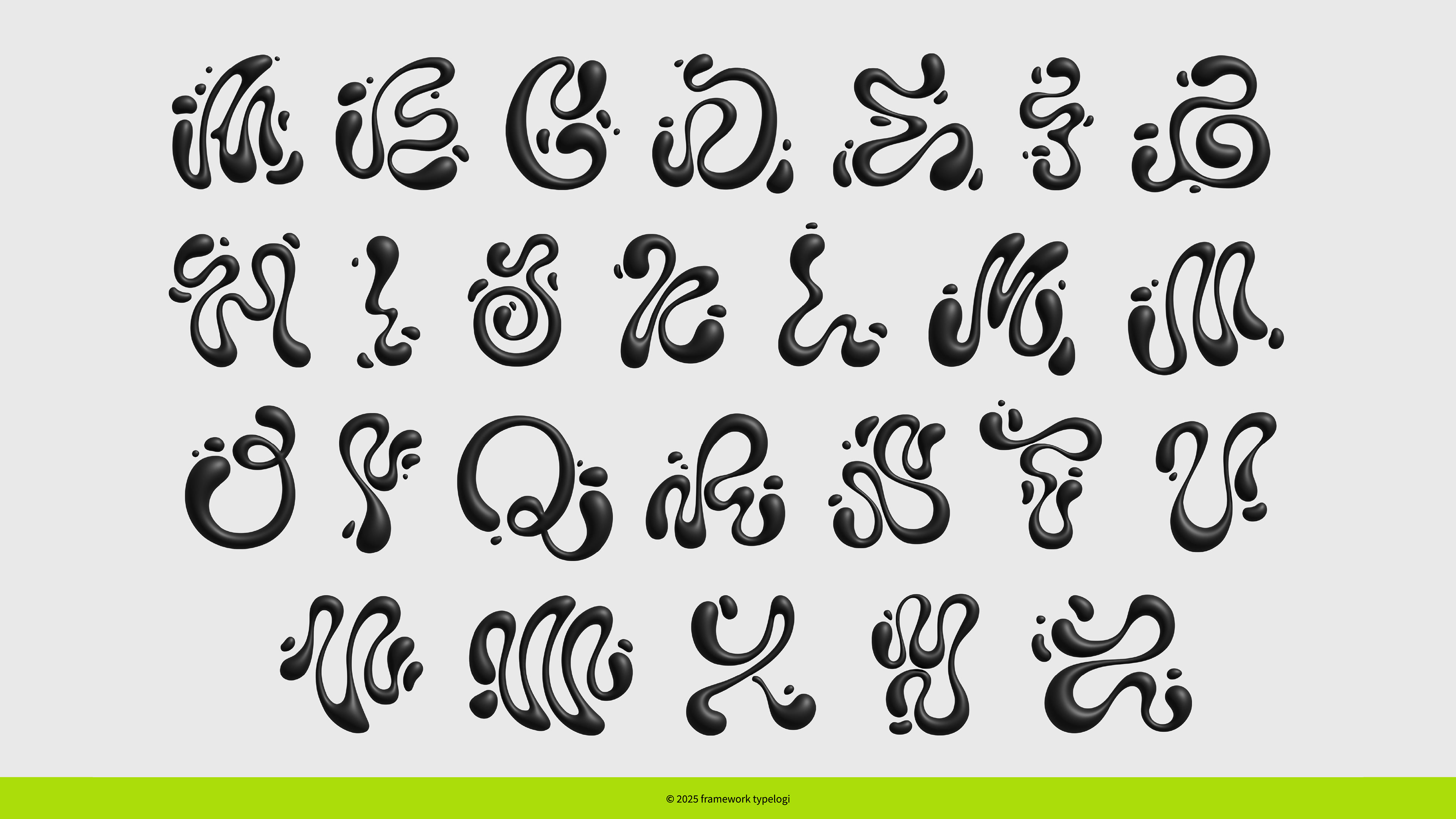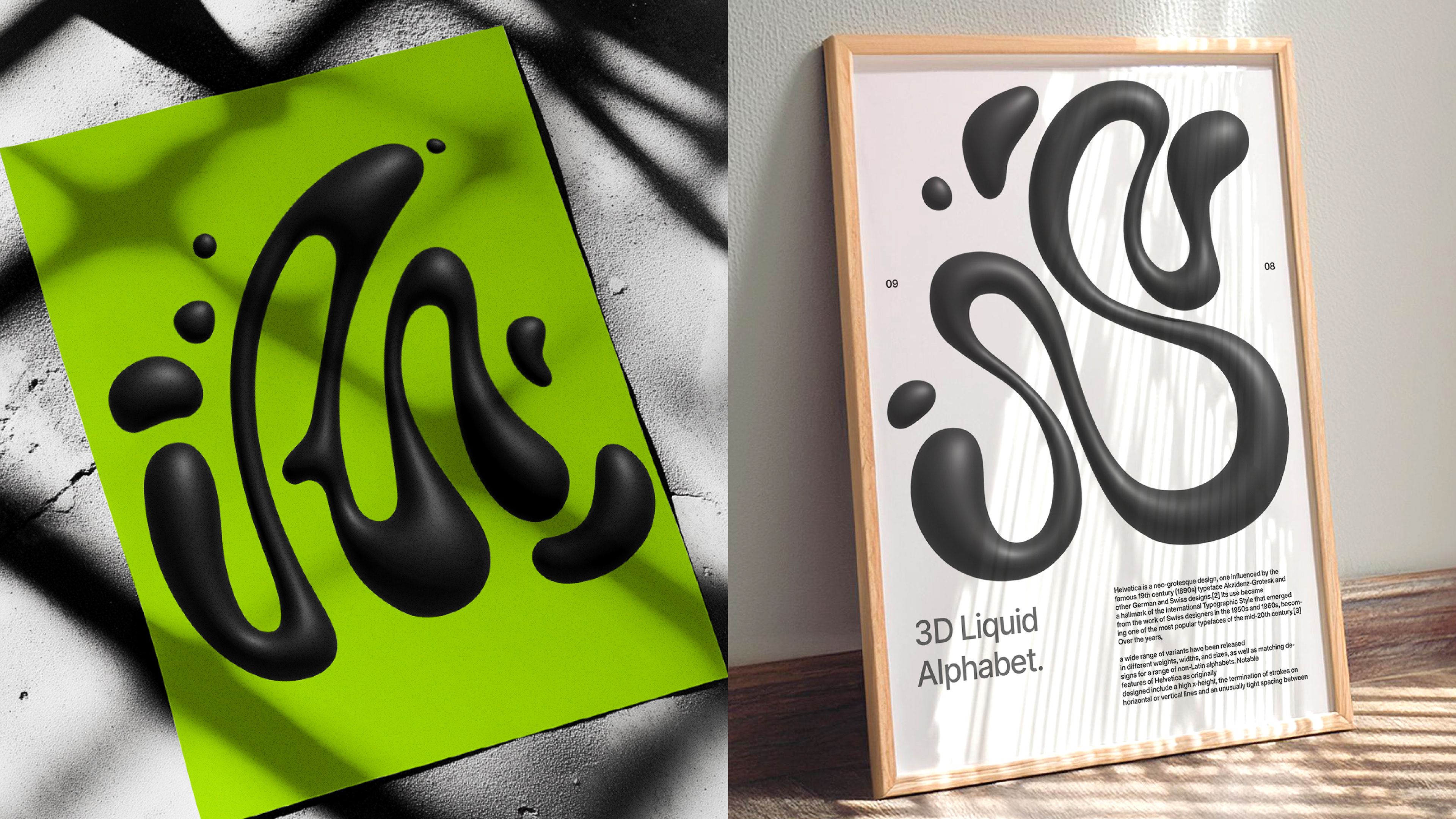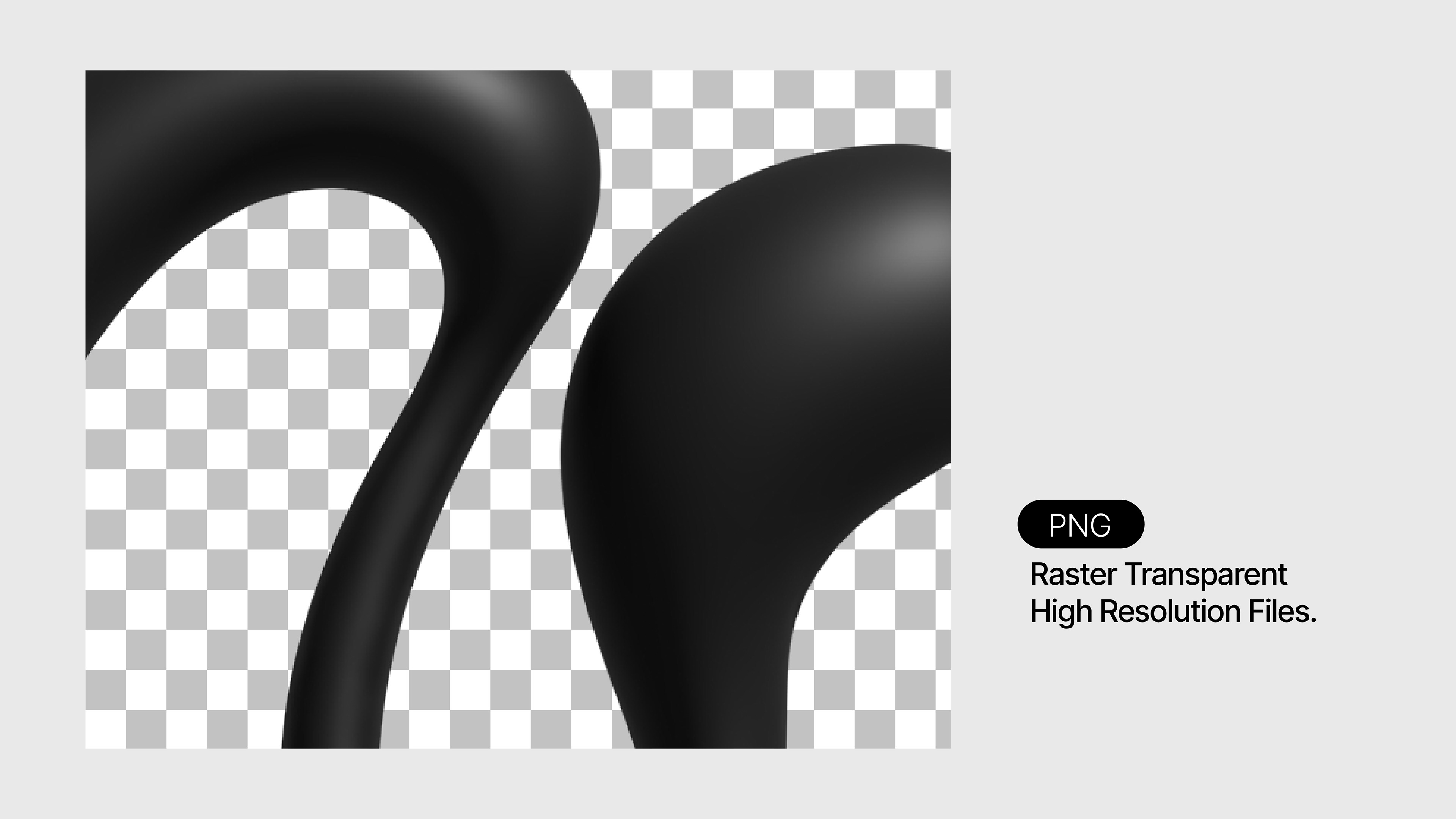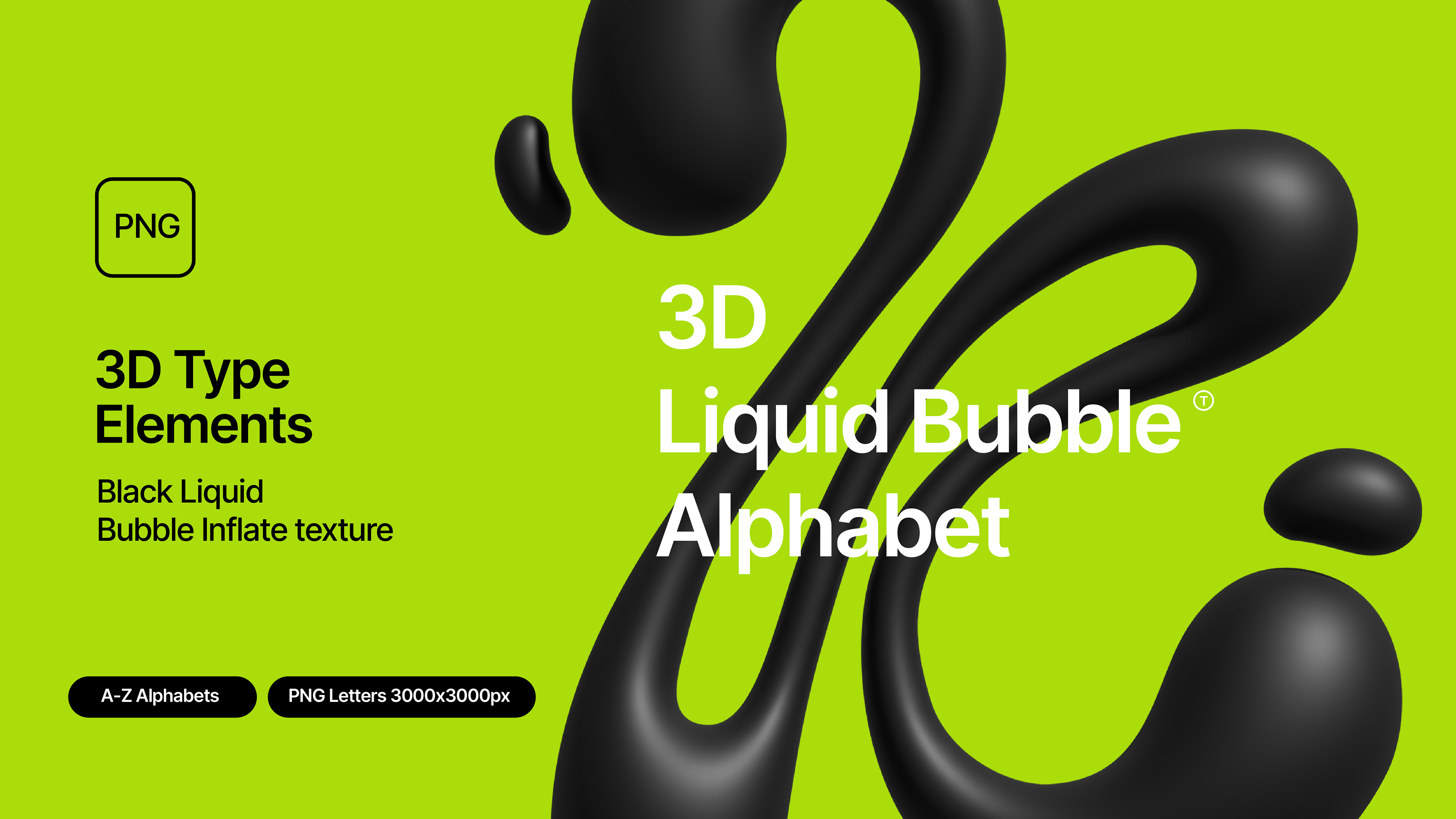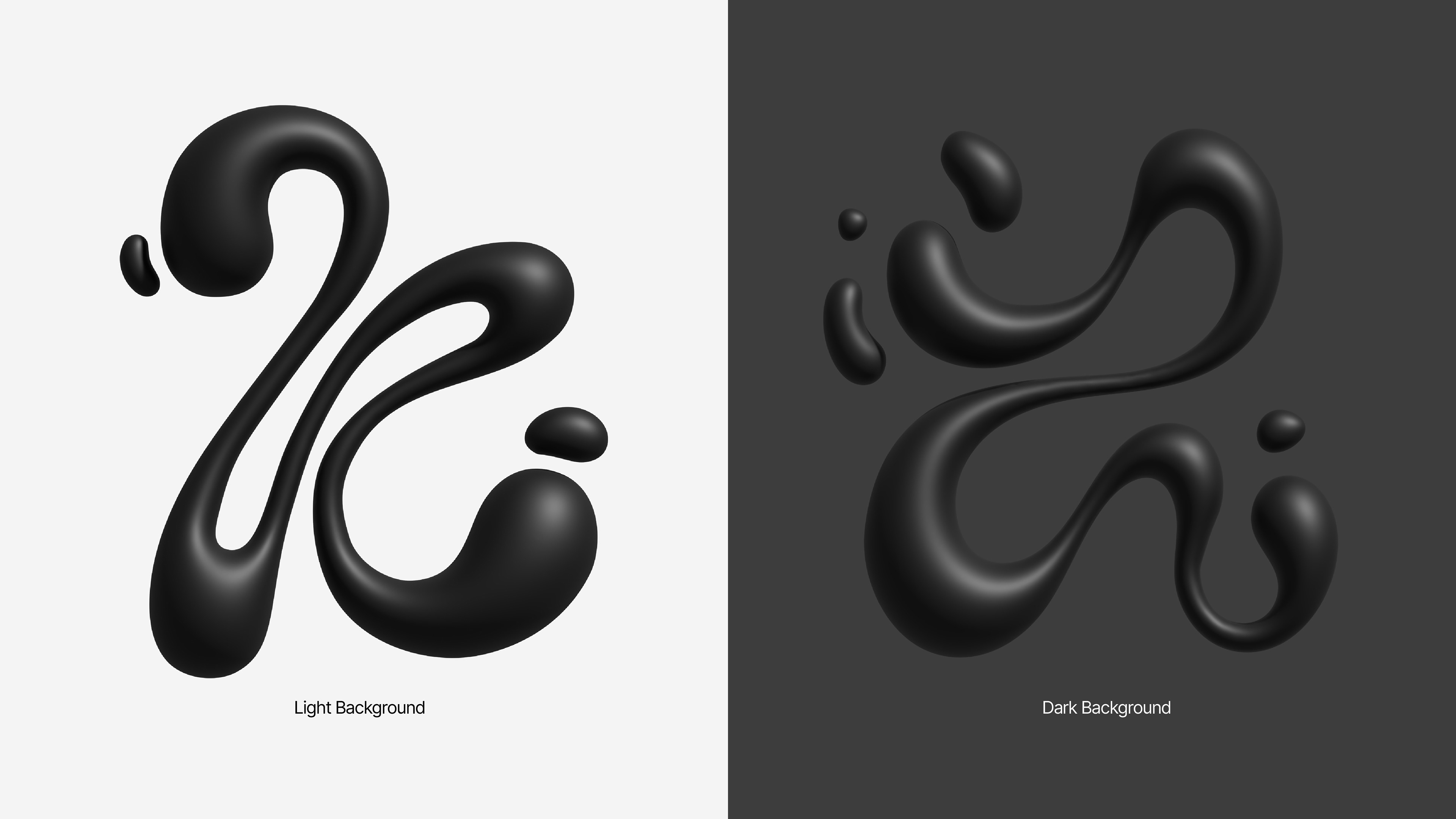
Text Effect of Black 3D Liquid realistic Bubble Inflate A – Z Alphabet initial Poster logo transparent. Suitable for Desk setup, Decoration, Printing, Creative Industry, Small business